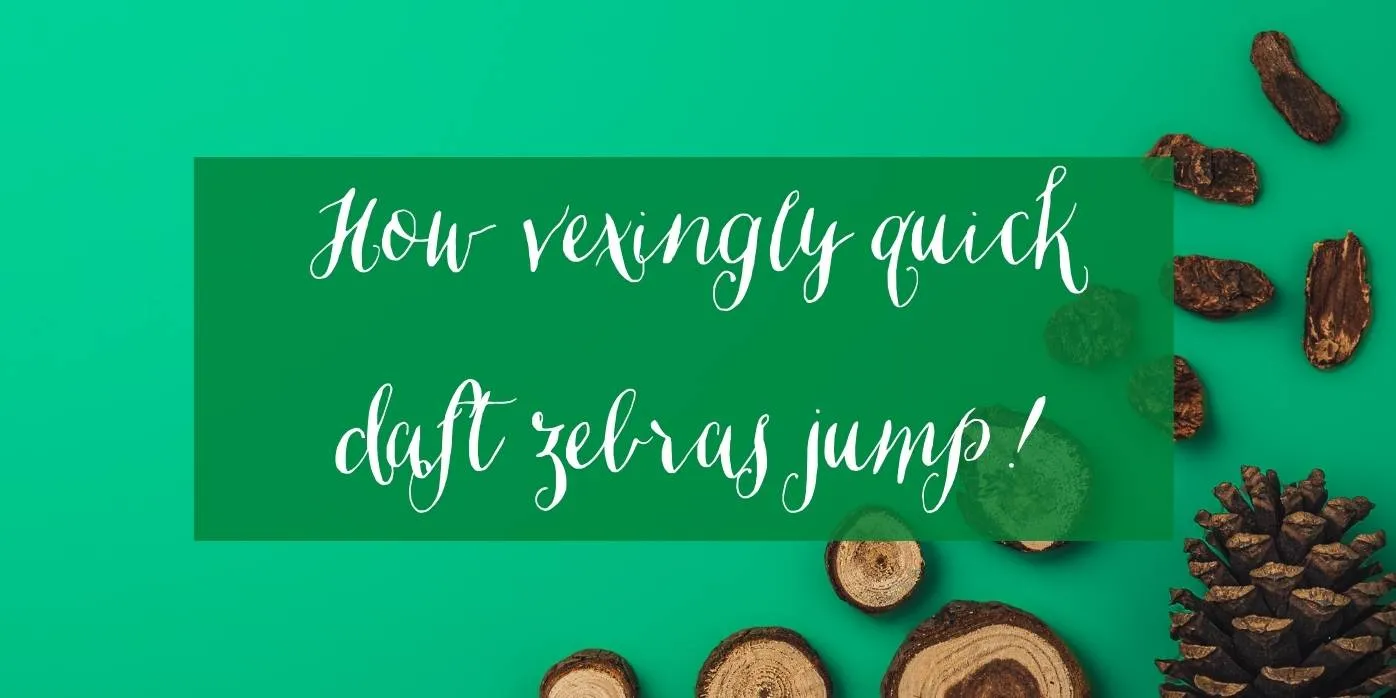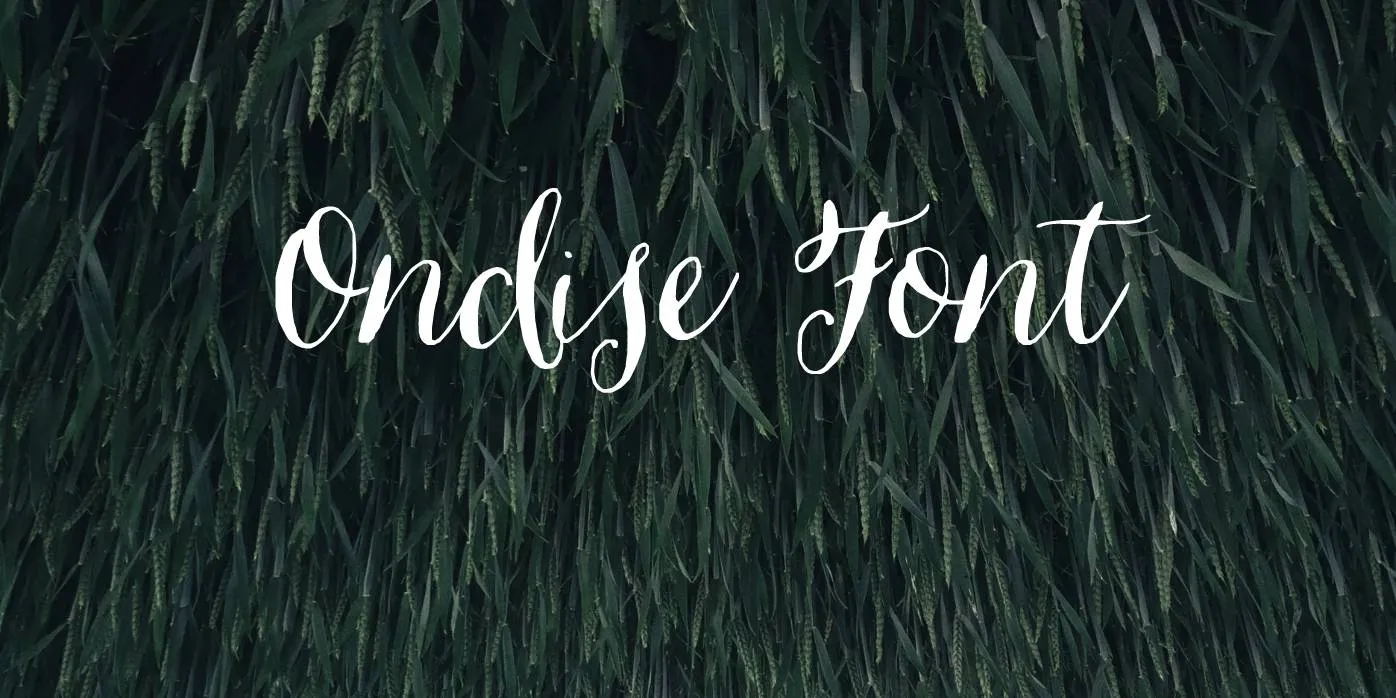
Ondise Font
Ondise font was designed by Jessica Mccarty. This typeface belongs to the Calligraphy typeface. It has a very strong and unique personality that makes it perfect for use in logos, headlines, and other creative designs. This typeface is best for CorelDRAW.
Mid Night Font is similar to this typeface. The best part about this cozy font is that it’s totally free for personal use! This classy typeface includes styles and unique glyphs. If you’re looking for a stunning font that will give your designs an extra touch of elegance, then ondise is definitely the right choice!